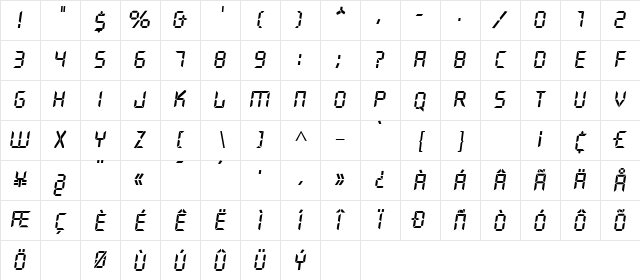
QuiverItal Regular Free Font
QuiverItal Regular
Design Context for QuiverItal
QuiverItal is a composed and adaptable typeface that performs quietly and consistently across a wide range of design contexts.